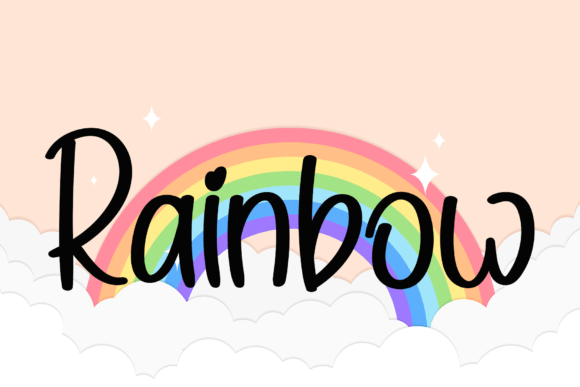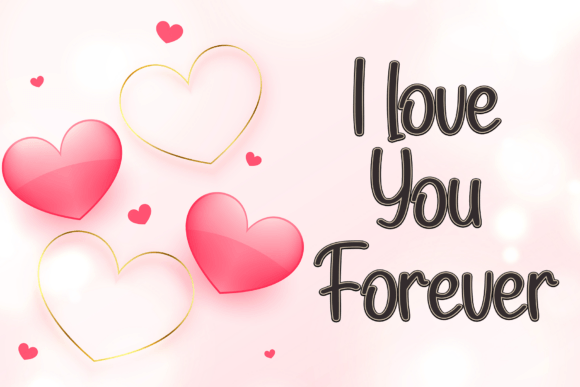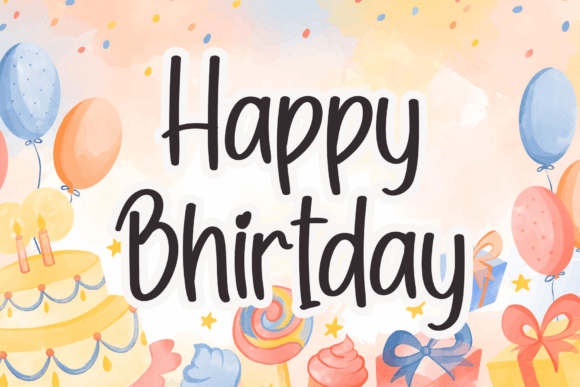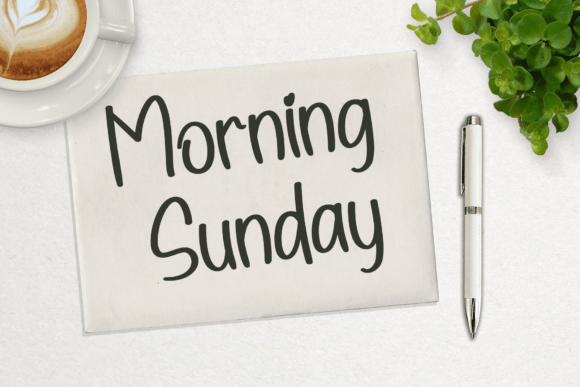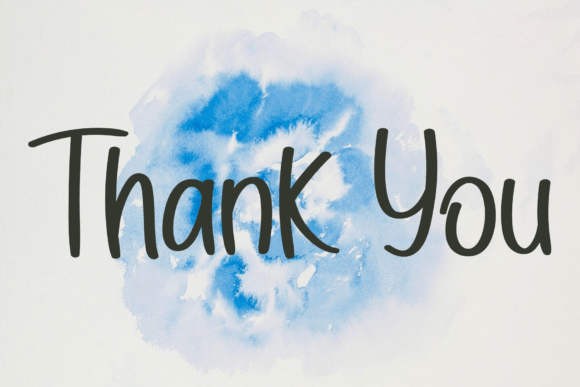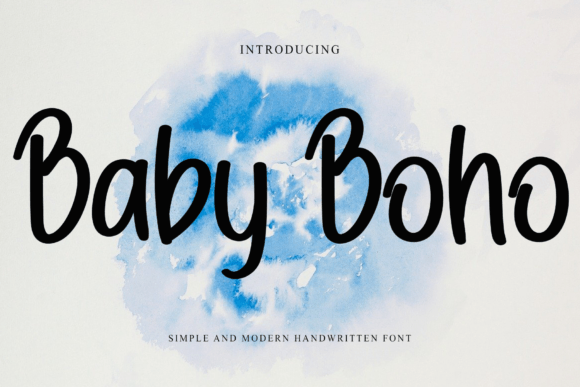
Baby Boho Font: The Ultimate Guide to This Sweet and Friendly Handwritten Font
Baby Boho is a sweet and friendly handwritten font that has captured the hearts of designers and crafters alike. Its natural and unique style makes it incredibly fitting to a large pool of designs, and the only limit is your imagination! In this comprehensive guide, we’ll dive into the world of Baby Boho Font, exploring its features, uses, and benefits.
What is Baby Boho Font?
Baby Boho Font is a handwritten font designed to evoke a sense of warmth, friendliness, and approachability. Its organic and whimsical feel makes it perfect for a wide range of design projects, from invitations and greeting cards to branding and packaging.
The font’s unique style is characterized by its flowing lines, subtle imperfections, and charming personality. Whether you’re looking to create a rustic, bohemian, or vintage-inspired design, Baby Boho Font is an excellent choice.
Key Features of Baby Boho Font
- Handwritten style: Baby Boho Font is a genuine handwritten font, crafted to resemble the natural flow of handwriting.
- Unique and distinctive: The font’s quirky style sets it apart from more traditional fonts, making it perfect for designers looking to add a personal touch to their work.
- Highly versatile: Baby Boho Font can be used for a wide range of design projects, from digital and print materials to craft and DIY projects.
- Easily readable: Despite its whimsical nature, Baby Boho Font remains highly legible, making it suitable for body text and headlines.
Uses for Baby Boho Font
Baby Boho Font’s versatility knows no bounds! Here are some popular use cases for this beautiful font:
- Invitations and greeting cards: Add a personal touch to your special occasions with Baby Boho Font’s charming and whimsical style.
- Branding and packaging: Use Baby Boho Font to create unique and eye-catching branding and packaging designs that stand out from the crowd.
- Digital and print materials: From social media graphics to brochures and flyers, Baby Boho Font is perfect for a wide range of digital and print materials.
- Craft and DIY projects: Add a touch of personality to your craft and DIY projects, such as handmade cards, gift tags, and scrapbooking.
Benefits of Using Baby Boho Font
So, why choose Baby Boho Font for your design projects? Here are just a few benefits:
- Adds a personal touch: Baby Boho Font’s handwritten style adds a warm, personal touch to your designs, making them more relatable and engaging.
- Unique and distinctive: Stand out from the crowd with Baby Boho Font’s one-of-a-kind style, which is sure to capture attention and leave a lasting impression.
Tips for Using Baby Boho Font
- Experiment with colors: Baby Boho Font looks great in a range of colors, from bold and bright to soft and pastel.
- Mix and match: Combine Baby Boho Font with other fonts to create a unique and eye-catching design.
- Play with sizes: Use Baby Boho Font in a range of sizes to add visual interest and create a dynamic design.